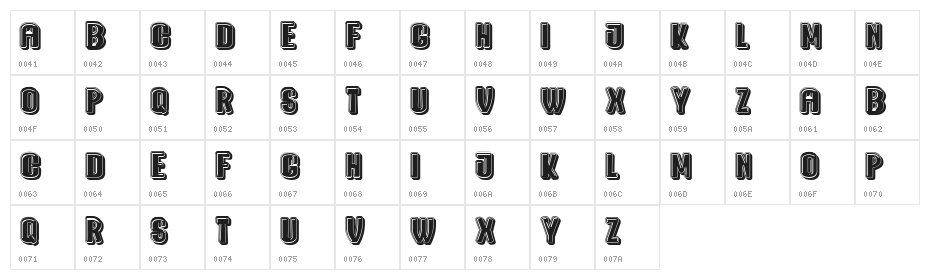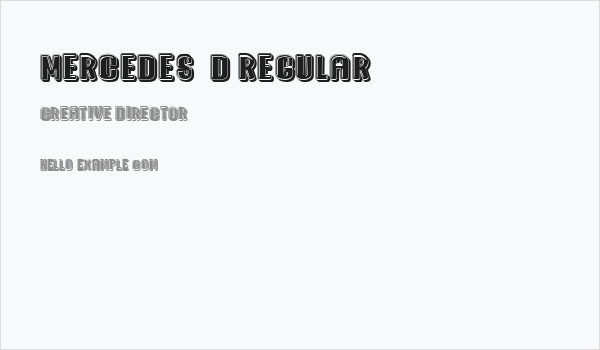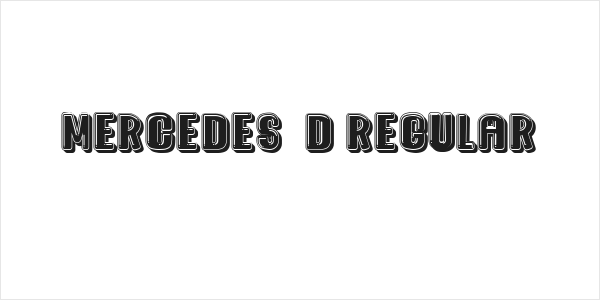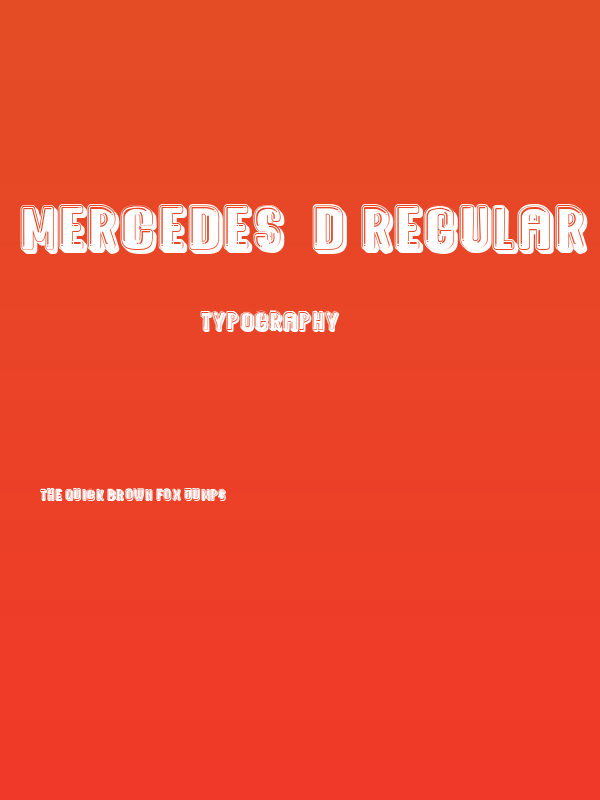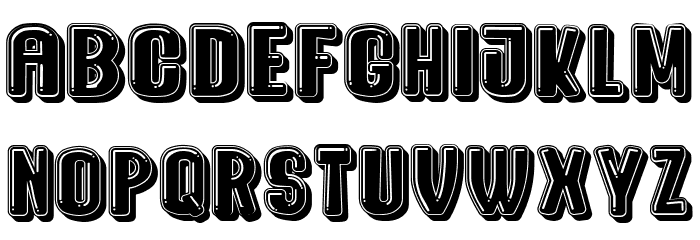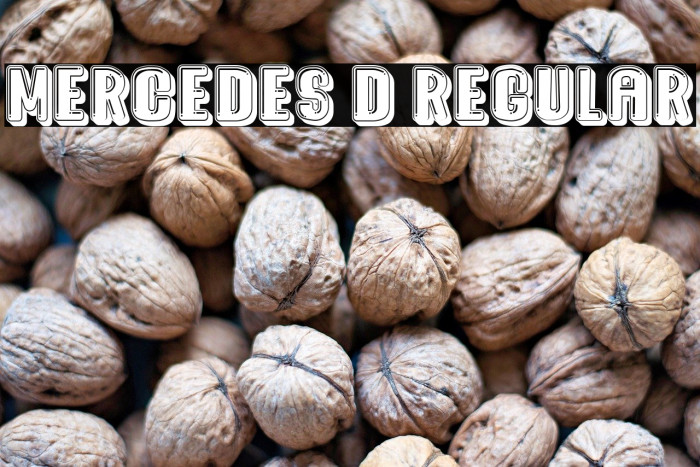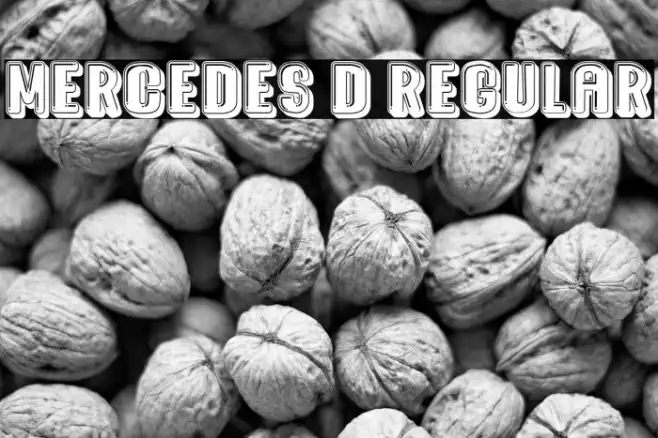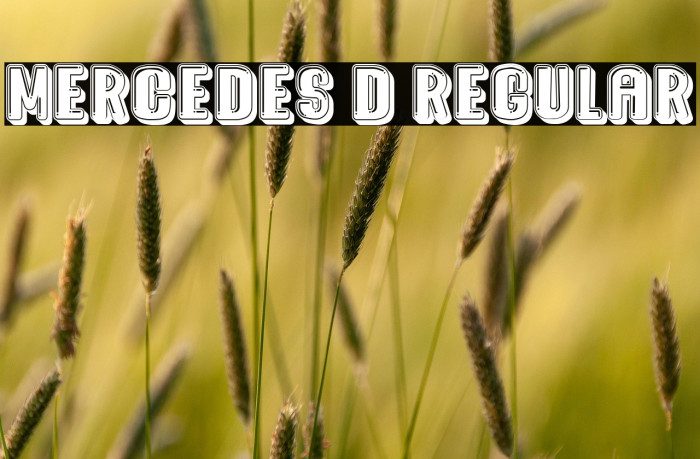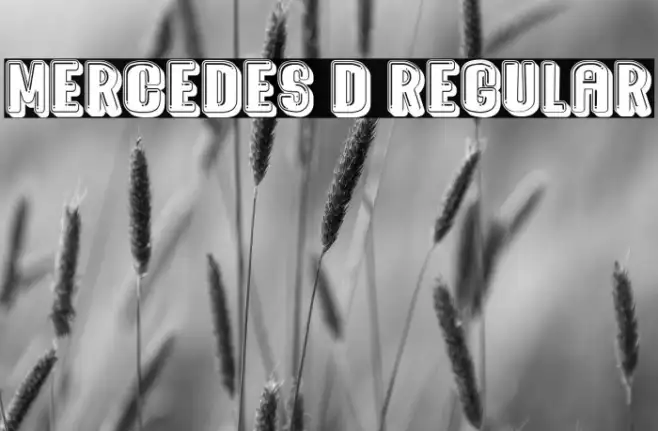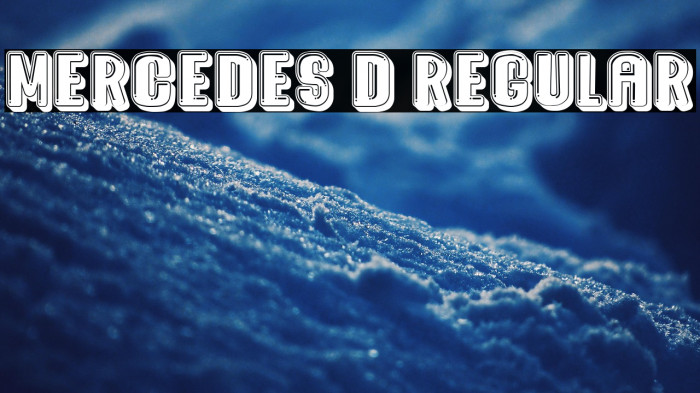
Mercedes 3D Regular Font
Mercedes 3D Regular Description
This font features a bold, three-dimensional style with a strong presence. The letters are outlined with a thick black border, creating a shadow effect that gives depth and a striking visual impact. The interior of each character is filled with a lighter shade, enhancing the 3D illusion. The font is highly decorative, making it ideal for attention-grabbing headlines or logos. Its geometric shapes and clean lines convey a modern and dynamic feel, while the consistent thickness of the strokes provides a sense of stability and strength. The font's unique style makes it suitable for projects that require a bold and memorable typeface.
| Proposed Projects | Ideal for headlines, logos, posters, and any design needing a bold, eye-catching typeface. |